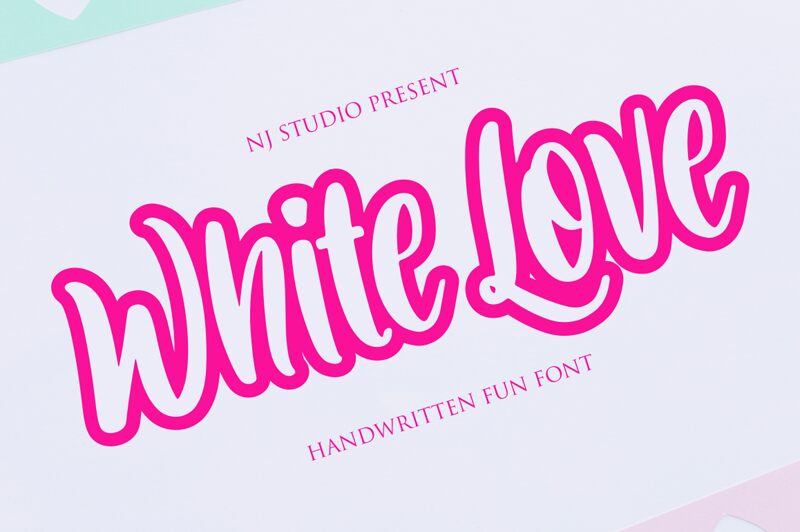
Oozing with a captivating handwritten charm, the "White Love" font by NJ Studio is a delightful typographic creation. Its condensed width lends a sense of elegance and refinement, while the organic, flowing strokes evoke a genuine, heartfelt expression. The font's aesthetic appeal lies in its unique balance between whimsical and sophisticated, making it a versatile choice for a variety of design applications.
This font's versatility shines through its ability to elevate various design projects, from wedding invitations and greeting cards to product branding and editorial layouts. The "White Love" font's distinct personality can add a touch of romance, warmth, and personal flair to any design, making it a compelling choice for projects that aim to convey a sense of intimacy, authenticity, and sincerity.